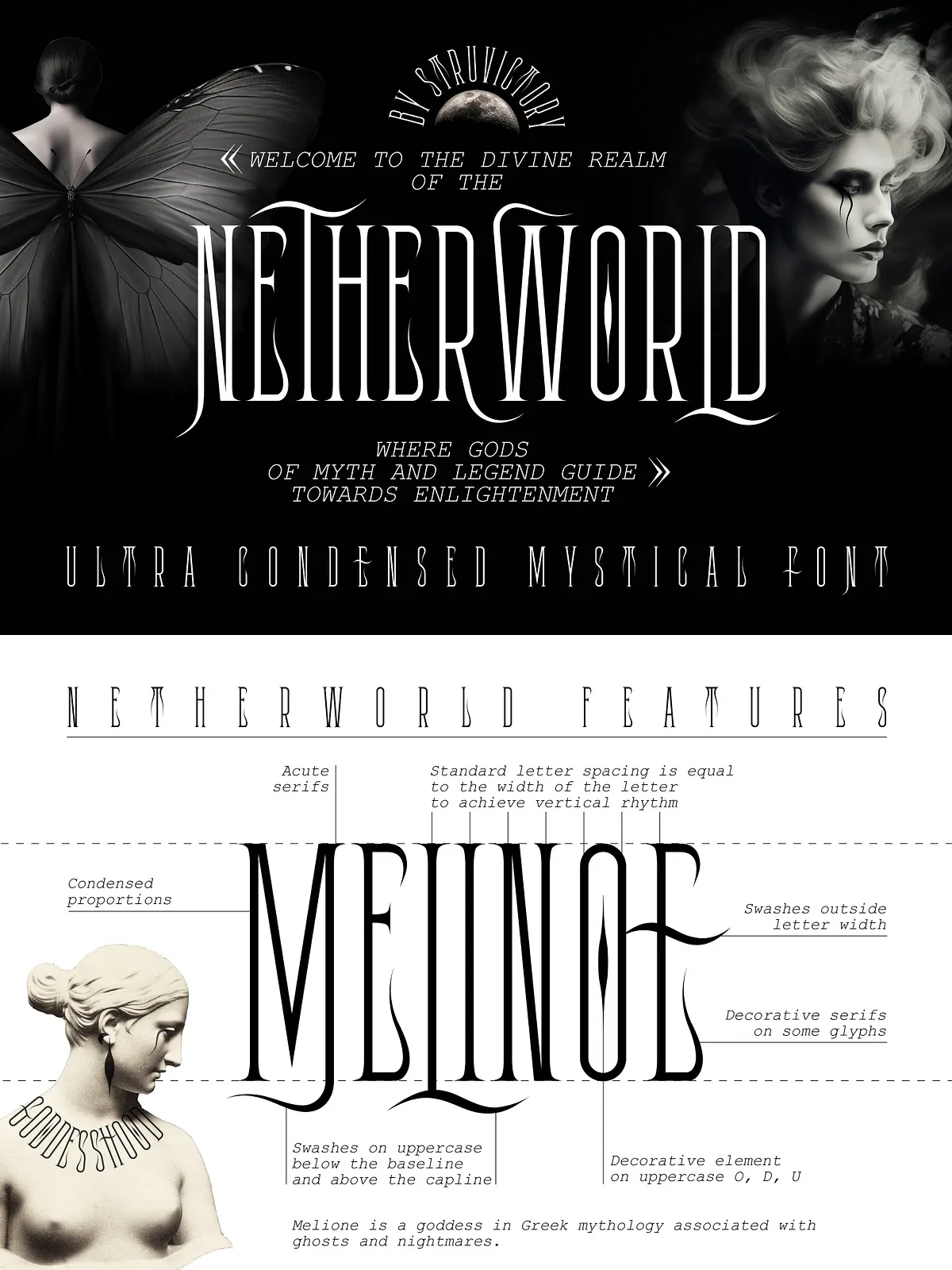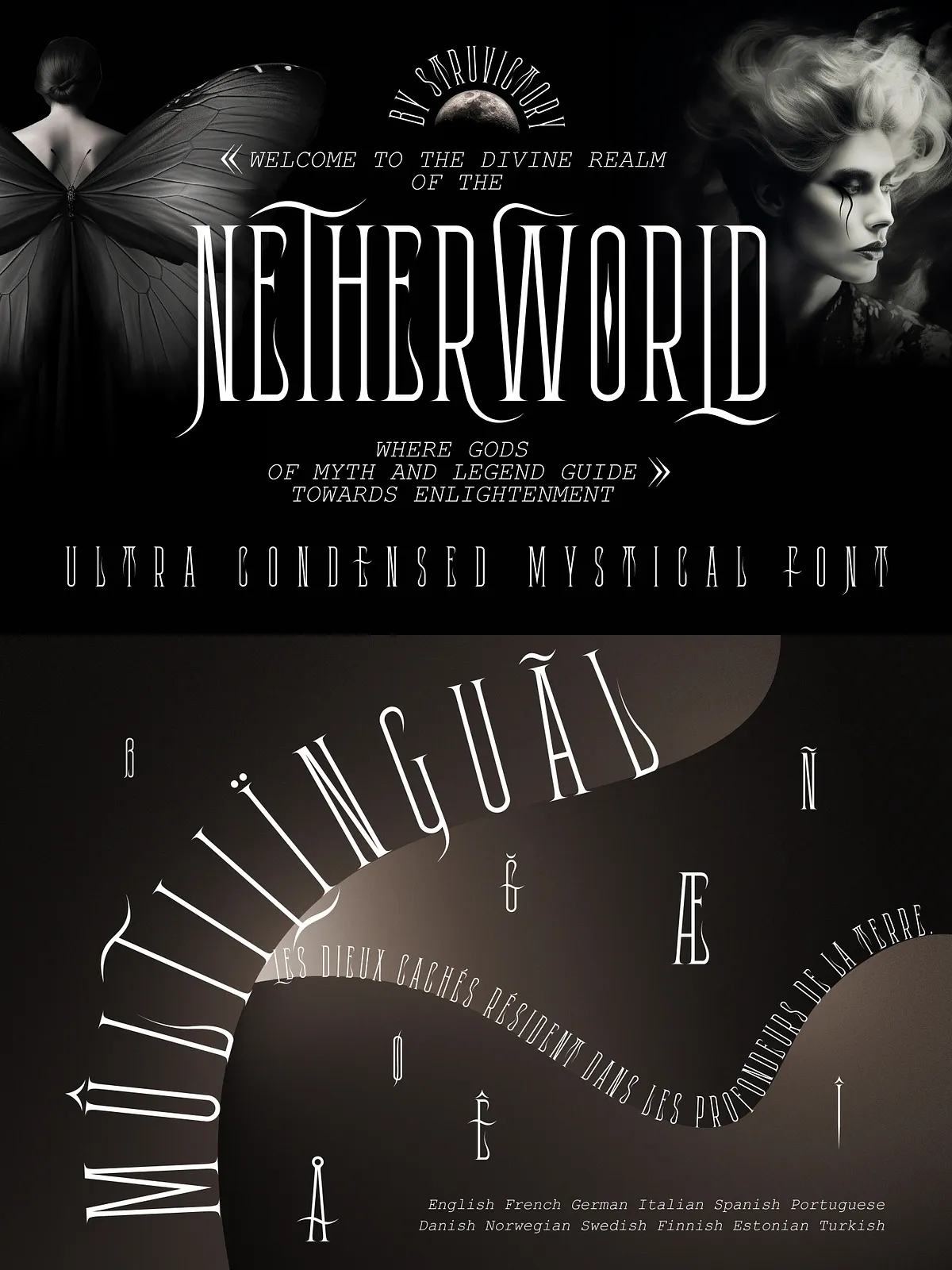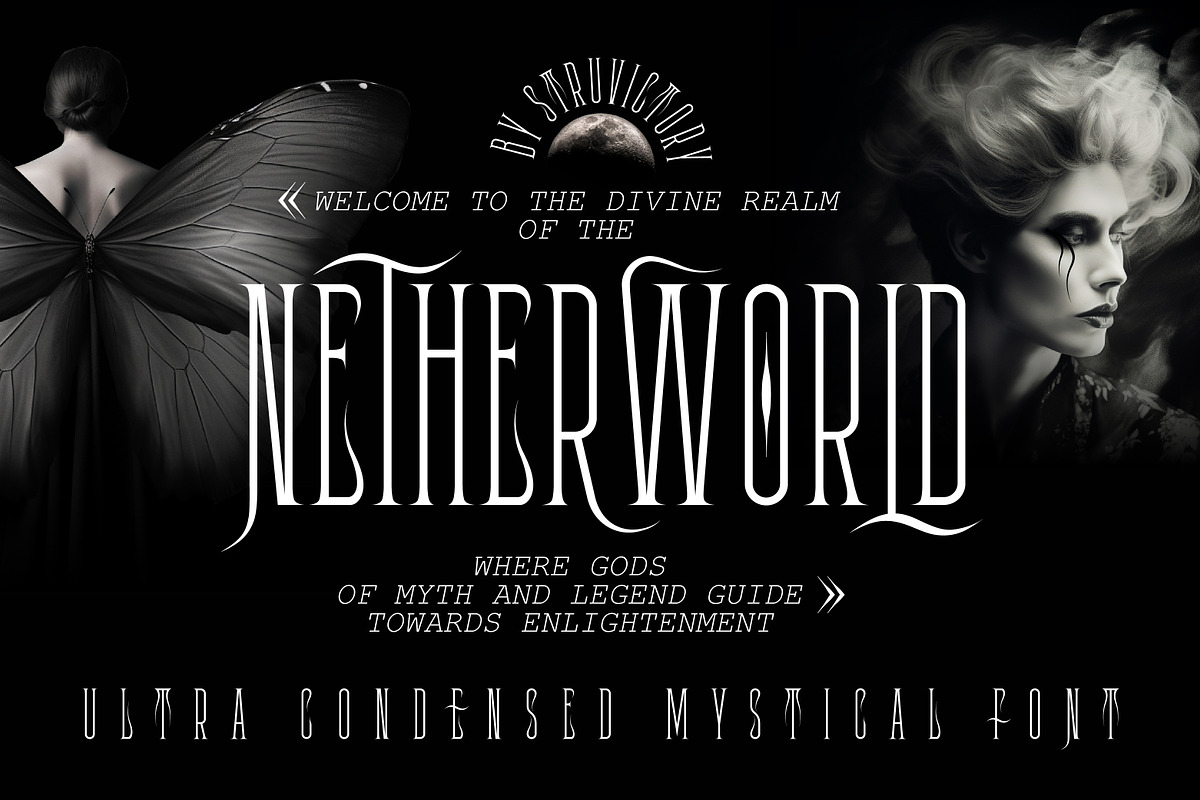
Prepare to transcend the ordinary and delve into the depths of captivating design with Netherworld, an extraordinary condensed font that masterfully blends ancient mystique with contemporary elegance. This isn’t just a typeface; it’s a portal to a world where serifs whisper secrets and swashes weave tales of intrigue. Designed for creators who dare to explore the shadowy corners of imagination, Netherworld delivers an unparalleled aesthetic for all your dark-themed projects.
Every curve and line of Netherworld exudes an air of mystery, beckoning your audience into a realm of enchantment. Its unique combination of condensed form and mystical detailing ensures your designs will not only stand out but also resonate with a powerful, hidden energy. From the subtle elegance required for a high-end potion label to the bold declaration of an arcane tome’s cover, Netherworld is your key to unlocking truly mesmerizing visual experiences.
Crafting the Unseen: Features Designed for the Mystical Artist
Netherworld has been meticulously crafted with the needs of dark and mystical aesthetics in mind, offering features that empower your creative vision.
• Mystical Serifs & Enigmatic Swashes
- The font’s defining characteristic: captivating serifs and swashes that evoke ancient scripts and esoteric symbols. These intricate details add a layer of sophistication and depth, making each character a piece of art.
- Condensed letterforms ensure efficiency in space, allowing for powerful impact even within constrained layouts, perfect for detailed packaging or intricate digital layouts.
• The Perfect Companion for Dark-Themed Creations
Netherworld is more than just a font; it’s an essential tool for bringing your darkest and most enchanting visions to life:
- Candle Labels: Infuse your artisanal candles with an aura of magic and mystery, making them irresistible to those seeking the unique.
- Album Covers: Give your music a visual identity that perfectly aligns with themes of introspection, power, and the unknown.
- Occult & Spiritual Branding: Establish a powerful and authentic presence for brands rooted in mysticism, astrology, or spiritual practices.
- Witchcraft & Esoteric Stores: Enhance product packaging, signage, and online presence with a font that speaks directly to your niche audience.
- Tarot Card Designs: Add a layer of ancient wisdom and gravitas to your card interpretations, making each reading feel more potent.
- Book Covers & Editorial: Capture the essence of fantasy, horror, and historical fiction with a typeface that tells a story before the first page is even turned.
• Universal Appeal: Multilingual Support for a Global Audience
Netherworld ensures your mystical message transcends linguistic barriers. We’ve included extensive support for the most popular Latin-based languages, so your designs can captivate audiences worldwide.
- Effortlessly create designs for English, Spanish, Portuguese, French, German, Italian, and many more, all while maintaining the font’s unique aesthetic.
Don’t just design; enchant. Don’t just create; mesmerize. Netherworld offers you the power to imbue your projects with an unmistakable aura of dark elegance and profound mystery. If your designs crave depth, intrigue, and a touch of the mystical, this font is your essential companion.
Embrace the unique and let Netherworld transform your creative work into an unforgettable experience. Your audience awaits the magic you will unfold.